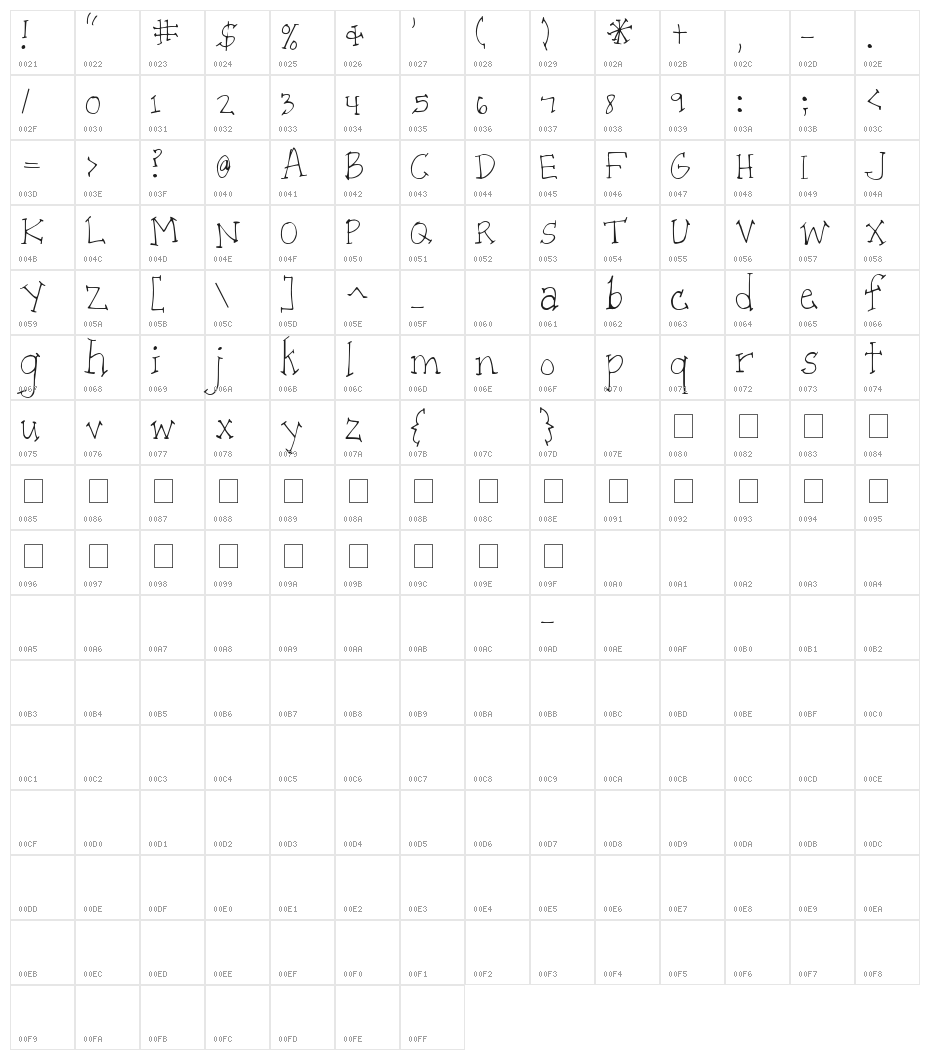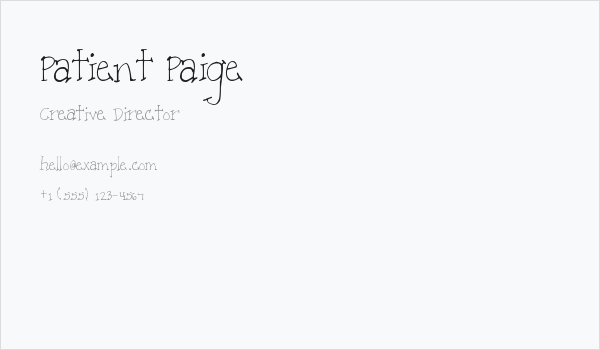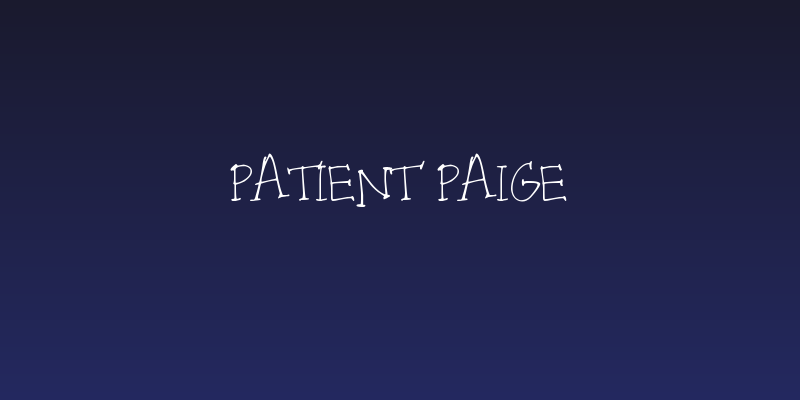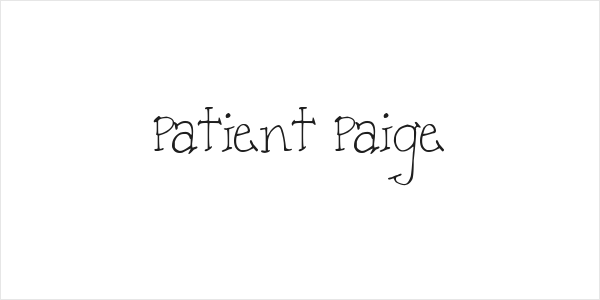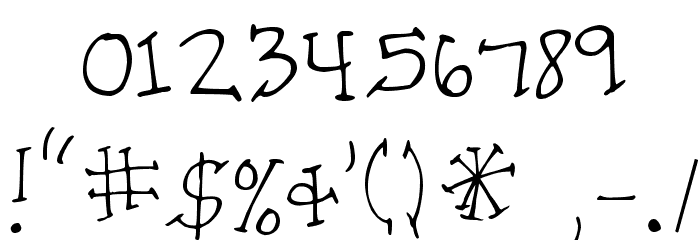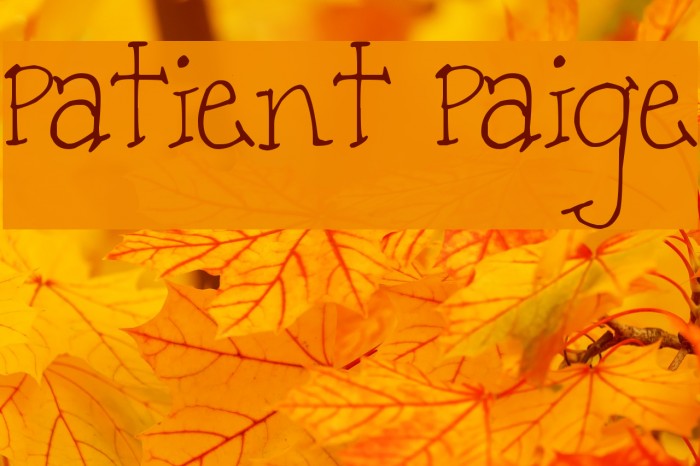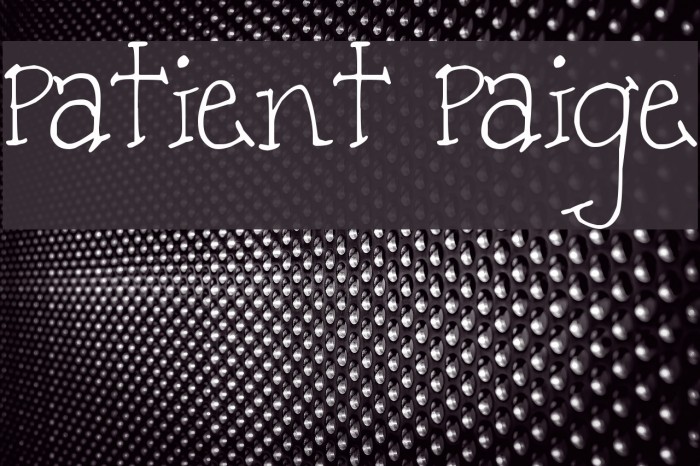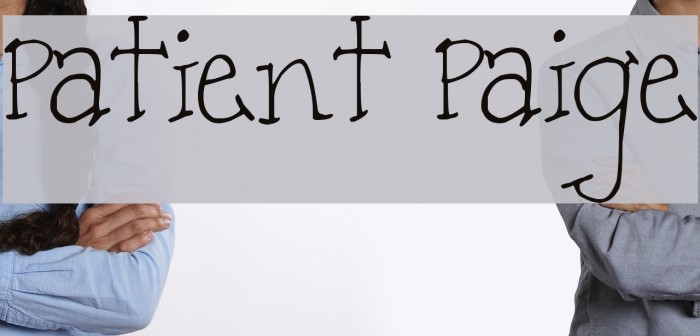
Patient Paige Font
Patient Paige Description
This font features a playful and whimsical handwritten style, characterized by its irregular strokes and slightly uneven baseline. The letters have a casual, informal appearance, with a mix of sharp and rounded edges that give it a unique, artistic flair. The uppercase letters are bold and prominent, while the lowercase letters maintain a consistent flow, enhancing the font's readability. Numbers and special characters are designed to match the overall style, ensuring a cohesive look across all text elements. This font's distinct personality makes it suitable for creative projects that require a touch of individuality and charm.
| Proposed Projects | Ideal for greeting cards, children's books, creative posters, and personal branding. |